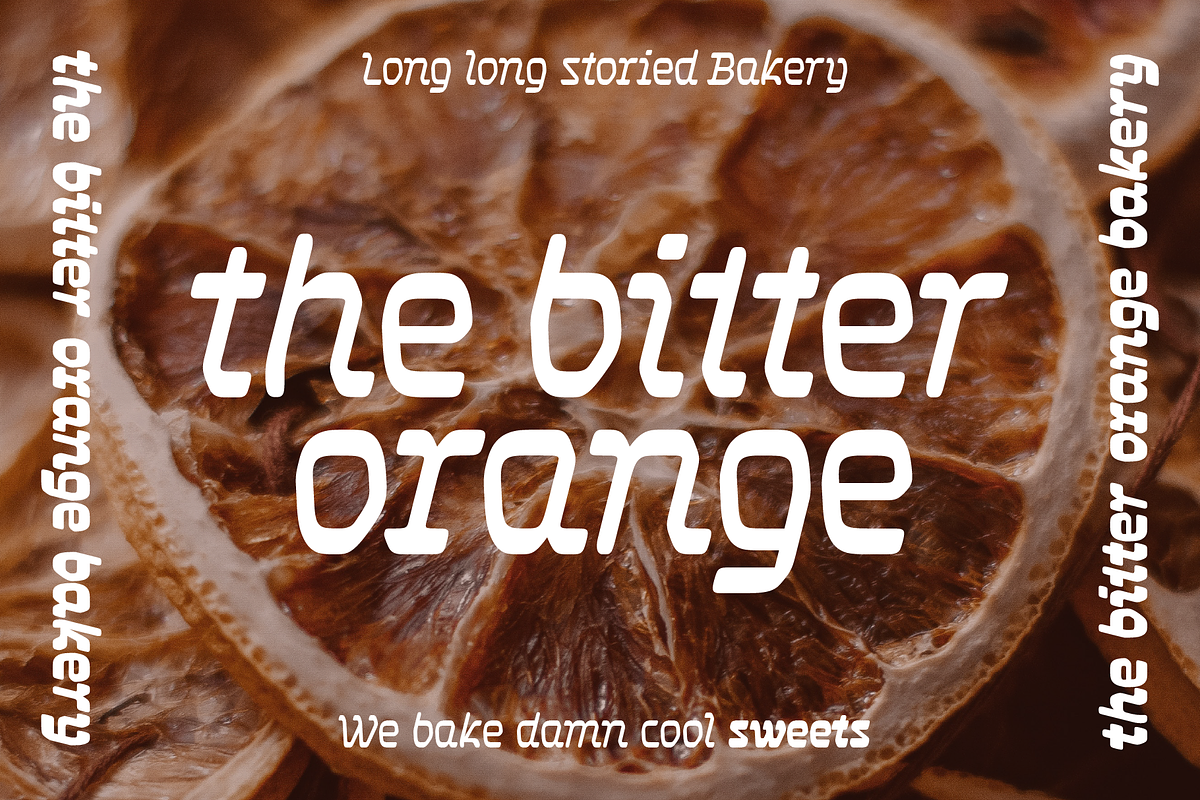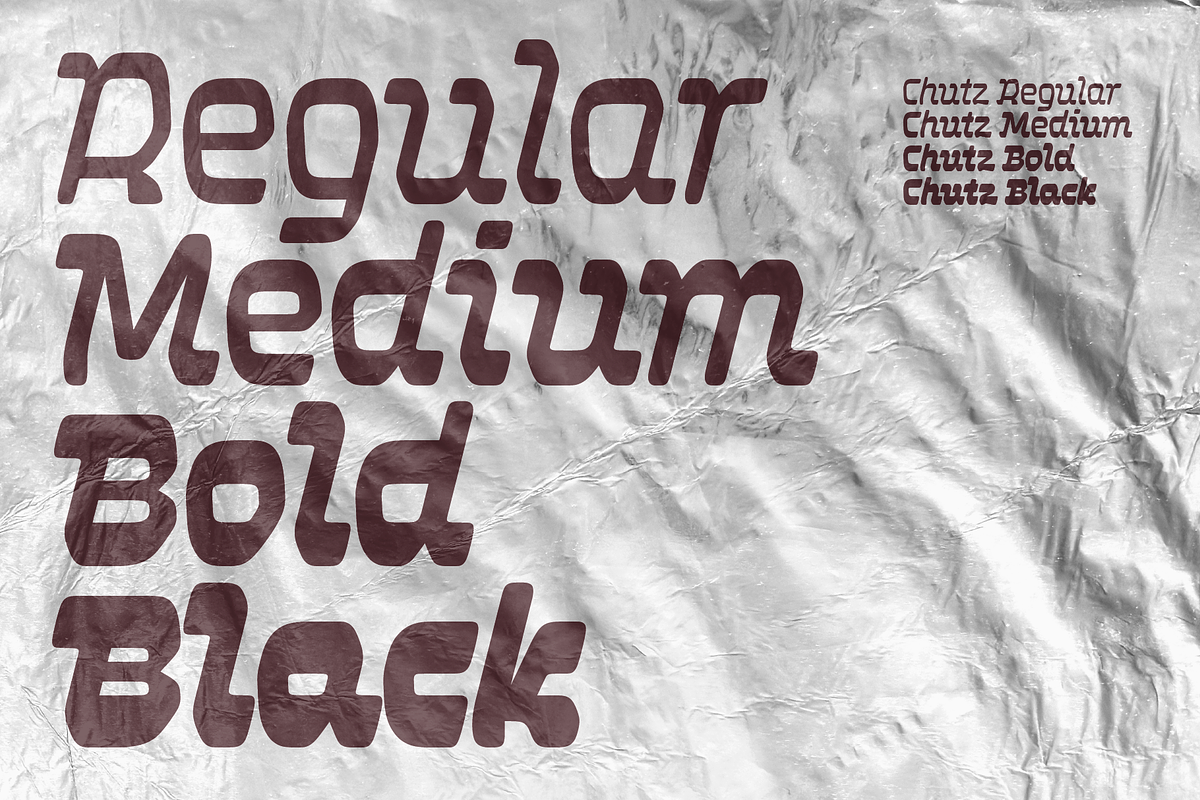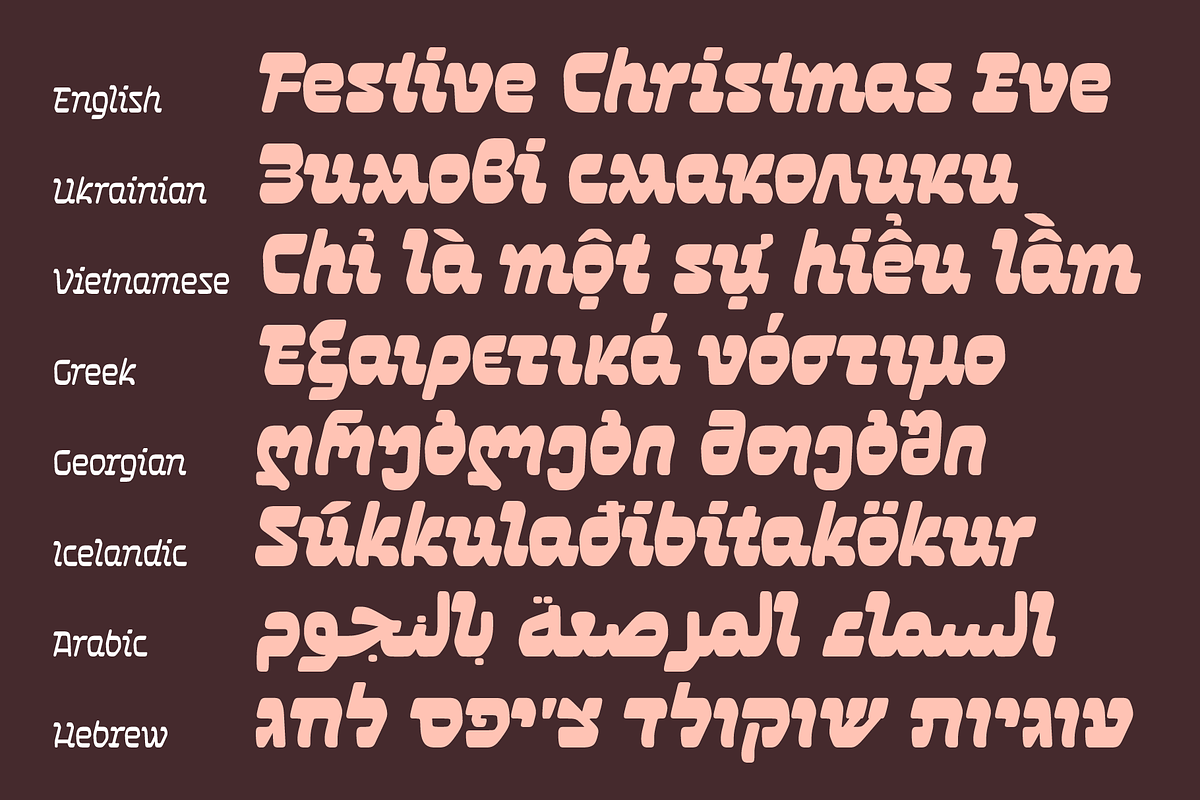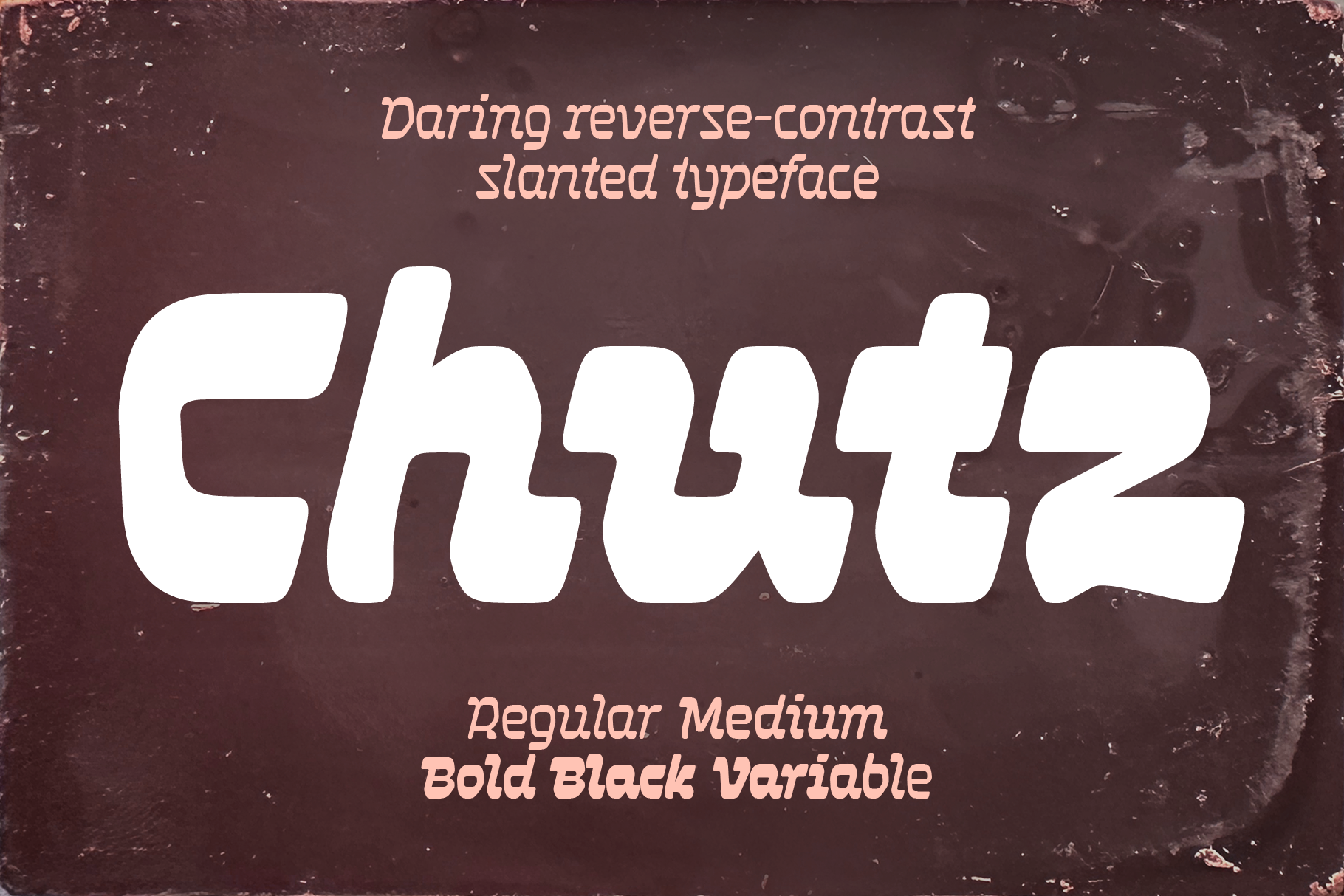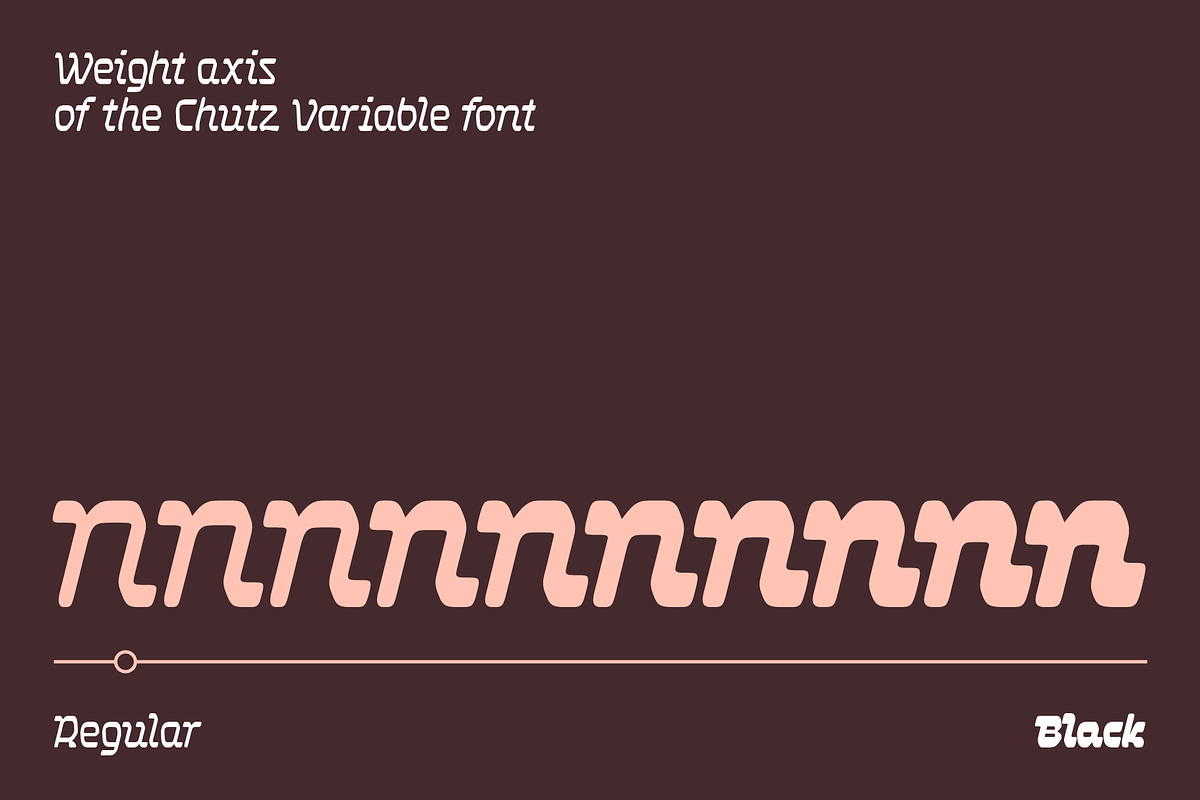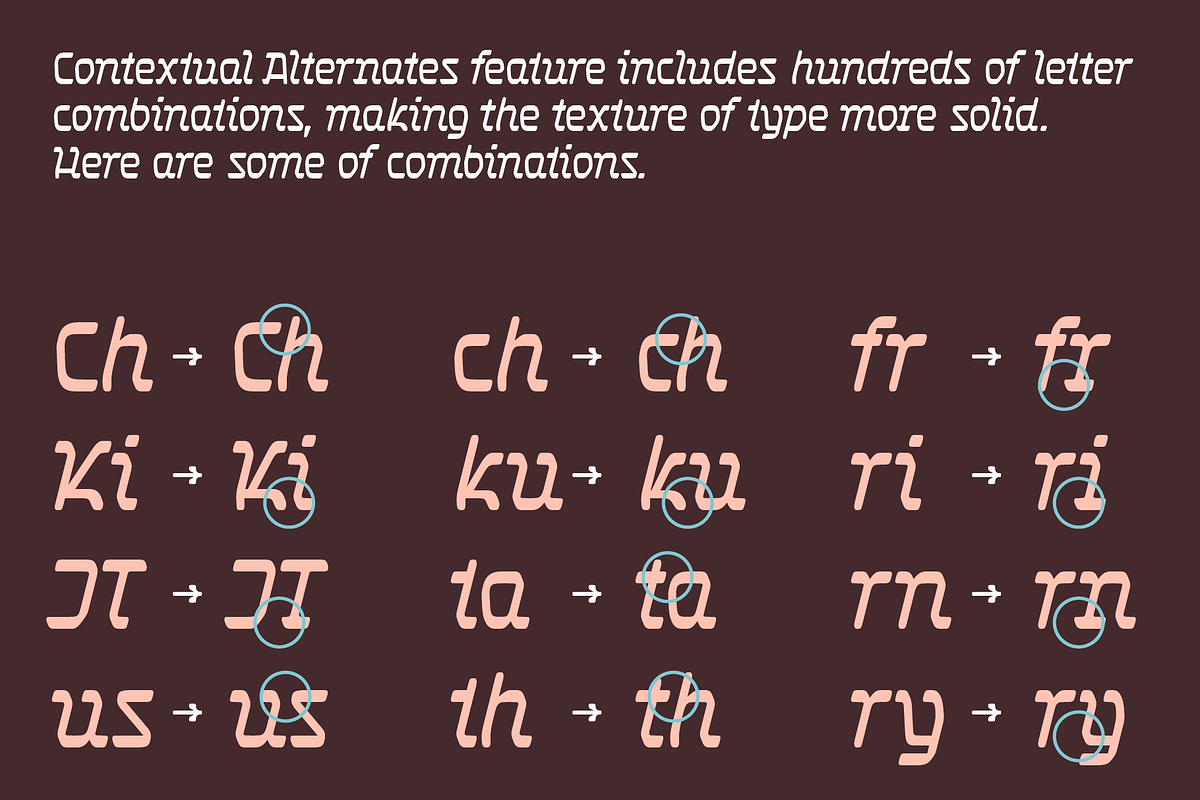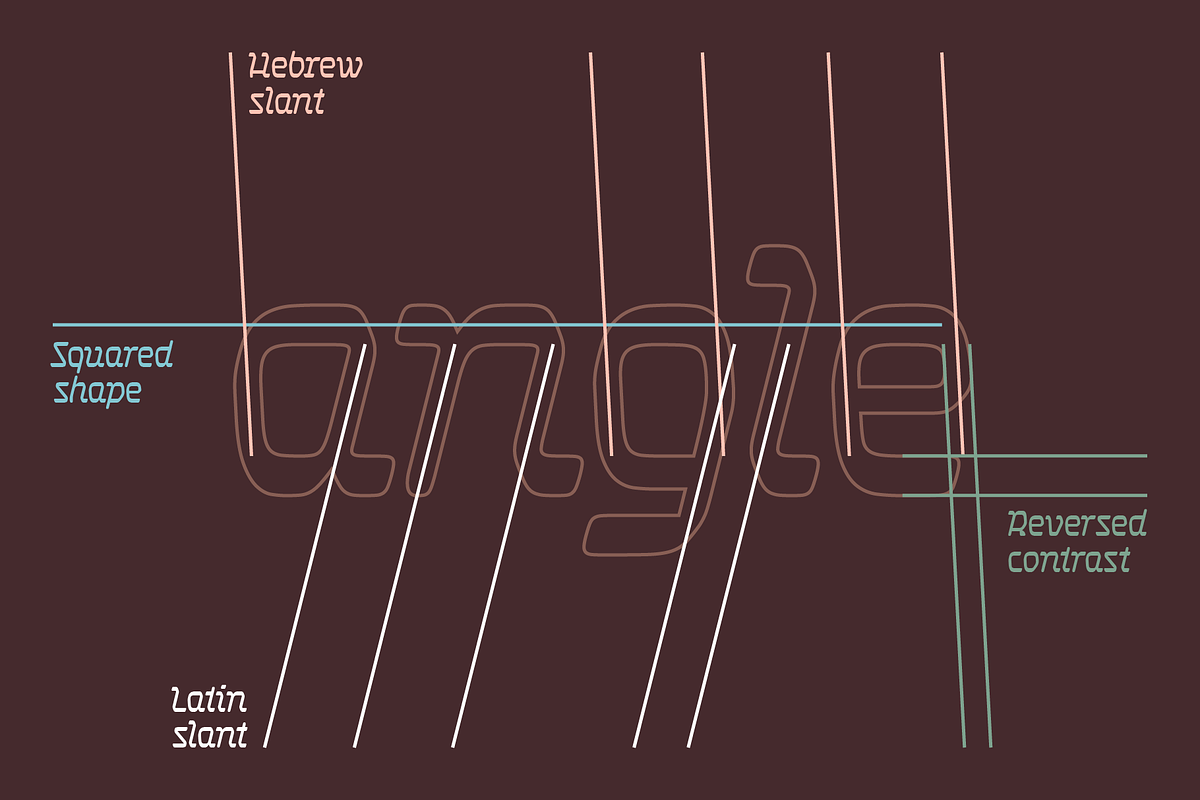
Chutz font
Chutz is an audacious horizontal-contrast slanted typeface with horizontally oriented strokes developed for Jewish brand Chutzpah of the Feisty Foods company based in Brooklyn, New York.
The typeface has three purposes – to feel Jewish, audacious, and delicious. To convey the feeling of Hebrew in Latin, Greek and Cyrillic script, such means as horizontal contrast (opposite of Latin) where horizontal strokes are thicker than vertical ones, and horizontally directed calligraphic strokes inherent in Hebrew script which make the letters more square, are used. To convey associations of deliciousness and to look like dough (in bolder weights), the design received soft details and rounding and saturated typographic color. To convey boldness and audacity, the structure of the letters received a different angle of slant for different letters. For example, most letters have a Latin slant (to the right), and other letters such as CGOQabcdegopqy have a typical Hebrew slant (to the left). Such a combination of different slants gives the typeface a complexity of the character ready for unexpected daring actions.
Scripts: Latin, Greek, Cyrillic, Georgian, Arabic, Hebrew
Glyphs: 1938
Variable font: Chutz Variable has weight axis and includes hundreds of weights ranging from Regular (400) to Black (900), so feel free to choose the most accurate weight that you need, using a slider or CSS.
Stylistic Alternates: ABCDEFIKMNPQRTZ ciknrsty ĆČĈÇḈĊḰǨĶḲḴŤŢṰȚṪṬṮŦŹŽẐŻẒẔ ćčĉċçḉıíìȉĭǐîïỉȋīĩḯịįḭḱǩķḳḵńǹňņṋṅṇṉñŕȑřŗṙṛȓṟṝɍśšŝşșṡṣṩṥṧťţṱțẗṫṭṯŧýỳŷÿẏỵỷȳẙỹ
Contextual Alternates: Hundreds of letter combinations (such as is, ku, ri, ry, th, tx, Ch, KA, TZ, OD and many others) have automatically substituted alternate versions, which makes the texture of type more solid.
Ordinals: adehnorst.
Superscript, Subscript, Numerator, Denominator: 0123456789.
Fractions: ¼½¾⅐⅑⅒⅓⅔⅕⅖⅗⅘⅙⅚⅛⅜⅝⅞⅟ (precomposed). Any other fractions (even those typed through a slash) will also be displayed correctly, with the automatic replacement to Numerator + fraction + Denominator.
Standard Ligatures: fi fl
Case conversion for monotonic Greek: ΆΈΉΊΌΎΏ. Greek uppercase accented characters lose their tonos accent and retain only dieresis in All Caps and Small Caps modes. Turned on by default. If you need tonos accents in All Caps then turn off Contextual Alternates (calt) feature.
Localized Forms: 29 character substitutions for Azeri, Bulgarian, Catalan, Dutch, German, Kazakh, Macedonian, Moldavian, Polish, Romanian, Serbian, Tatar, Turkish.
Glyph Composition/Decomposition (Diacritics): Extended Latin and based Vietnamese set of diacritics (562 characters). Precomposed.
Mark Positioning: 17 Hebrew diacritical marks positioned on the 27 letters of the Hebrew alphabet.